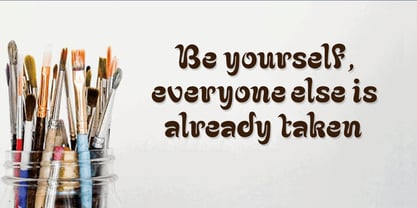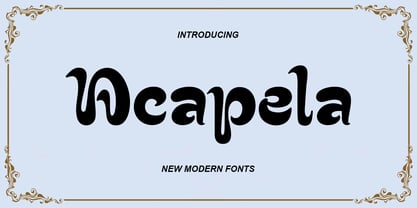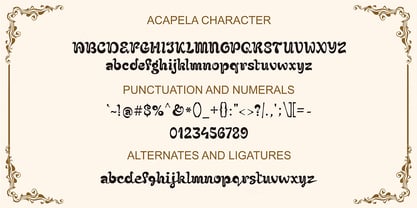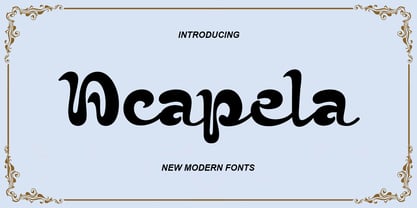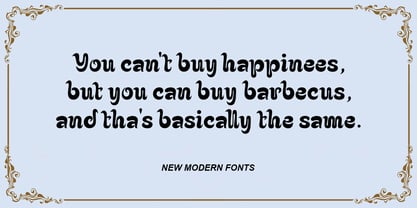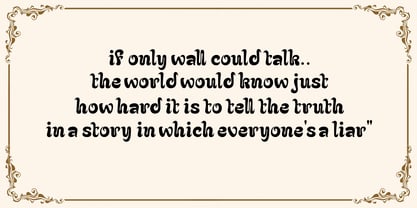
Acapela
by Scoothtype
The Acapela Font Family was designed by Muammar and published by Scoothtype. Acapela contains 3 styles and family package options. More about this family
Introducing Acapela
A retro-style typeface inspired by the classic "Bouteque" type specimen.
With its unique character and forms, Acapela will make your designs stand out.
influences, theThe system is created with curvy lines, strong inverted contrast and sharp endings, resulting of organic calligraphic shapes. The ornamental form of this typeface also allows glyphs to be used as decorative letters, or simply as distinctive shapes. The strong identity of the design make it a perfect font to create lively distinctive branding projects.
Designers: Muammar
Foundry: Scoothtype